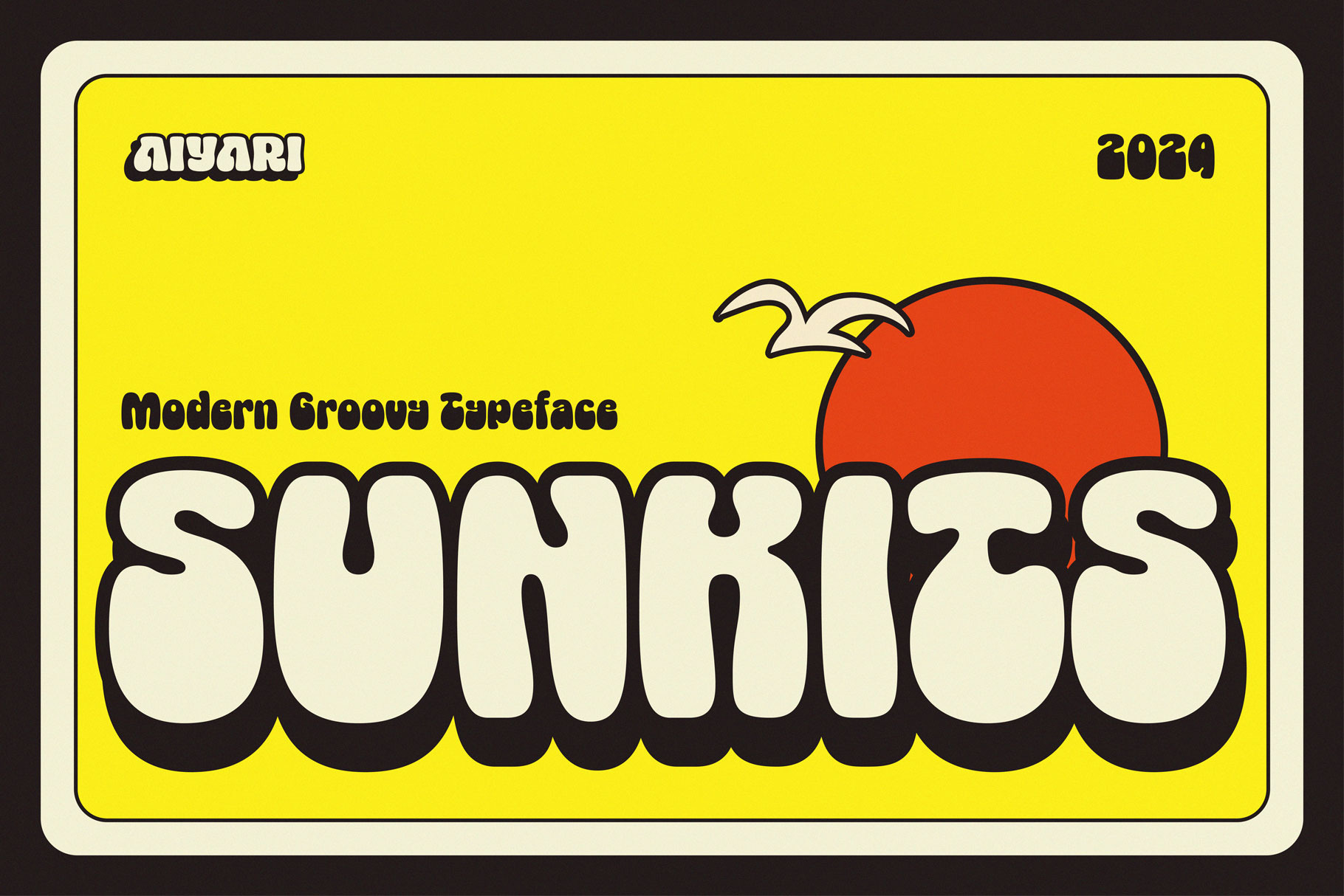
Sunkits Modern Groovy Typeface
Introducing Sunkits a typeface heavy influenced by hobo typeface infused with bubble vintage letter form with psychedelic design approach. Ayr Sunkits encompasses everything you need to complete your creative projects with modern groovy approach.
Ayr Sunkits is best used for headings, logotype, quotes, apparel design, invitation, poster, flyers, greeting cards, packaging, book cover, printed quotes, cover album, movie, & etc